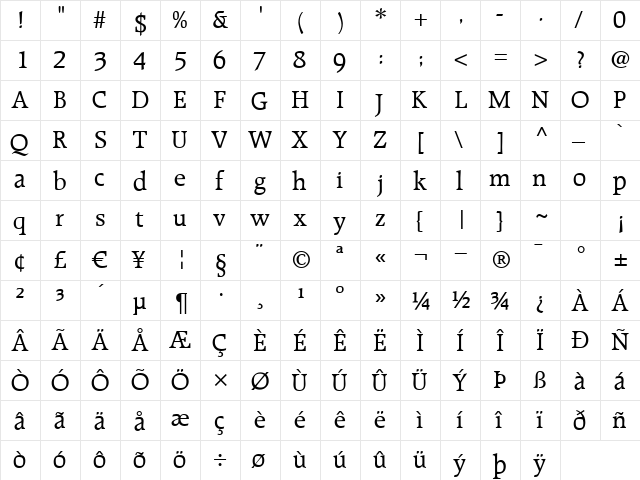
R651-Roman Regular
Design Context for R651-Roman Typeface
R651-Roman offers clean, dependable letterforms without strong stylistic allegiance, making it a practical choice for designers who need flexibility.
Pro Tip: Use R651-Roman in both headline and body roles to test its range before committing to a single application.